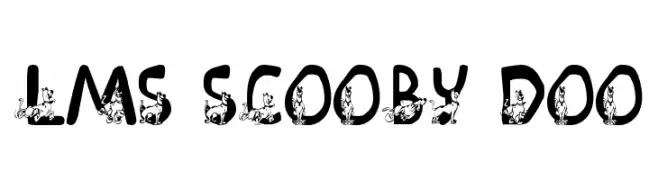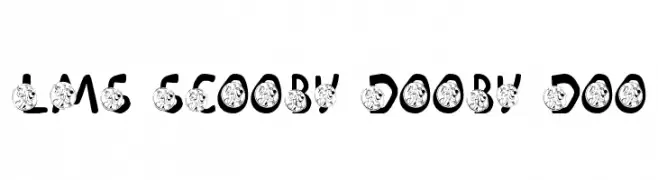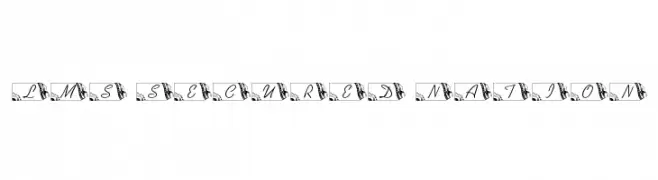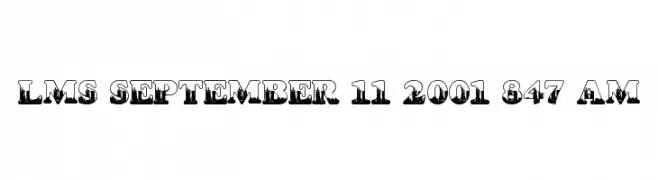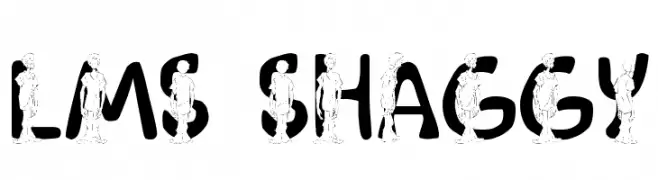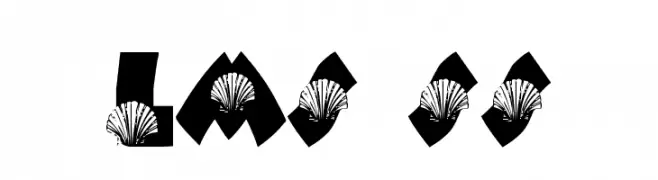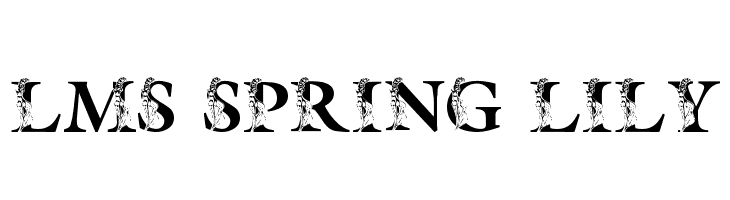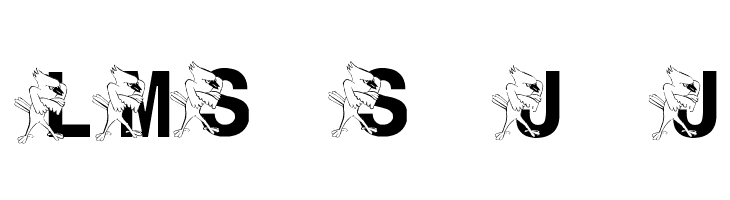
A bold, decorative font with a cheerleader theme, perfect for energetic and playful designs.
A playful, decorative font with a cut-out paper style and jagged outlines.
A whimsical font with letters inside playful seal illustrations.
An elegant script font with ornate flourishes and decorative elements.
A bold, decorative font with cityscape silhouettes in each character.
A playful, decorative font with cartoon figures integrated into bold, rounded characters.
A decorative font with seashell motifs integrated into bold, blocky letters.